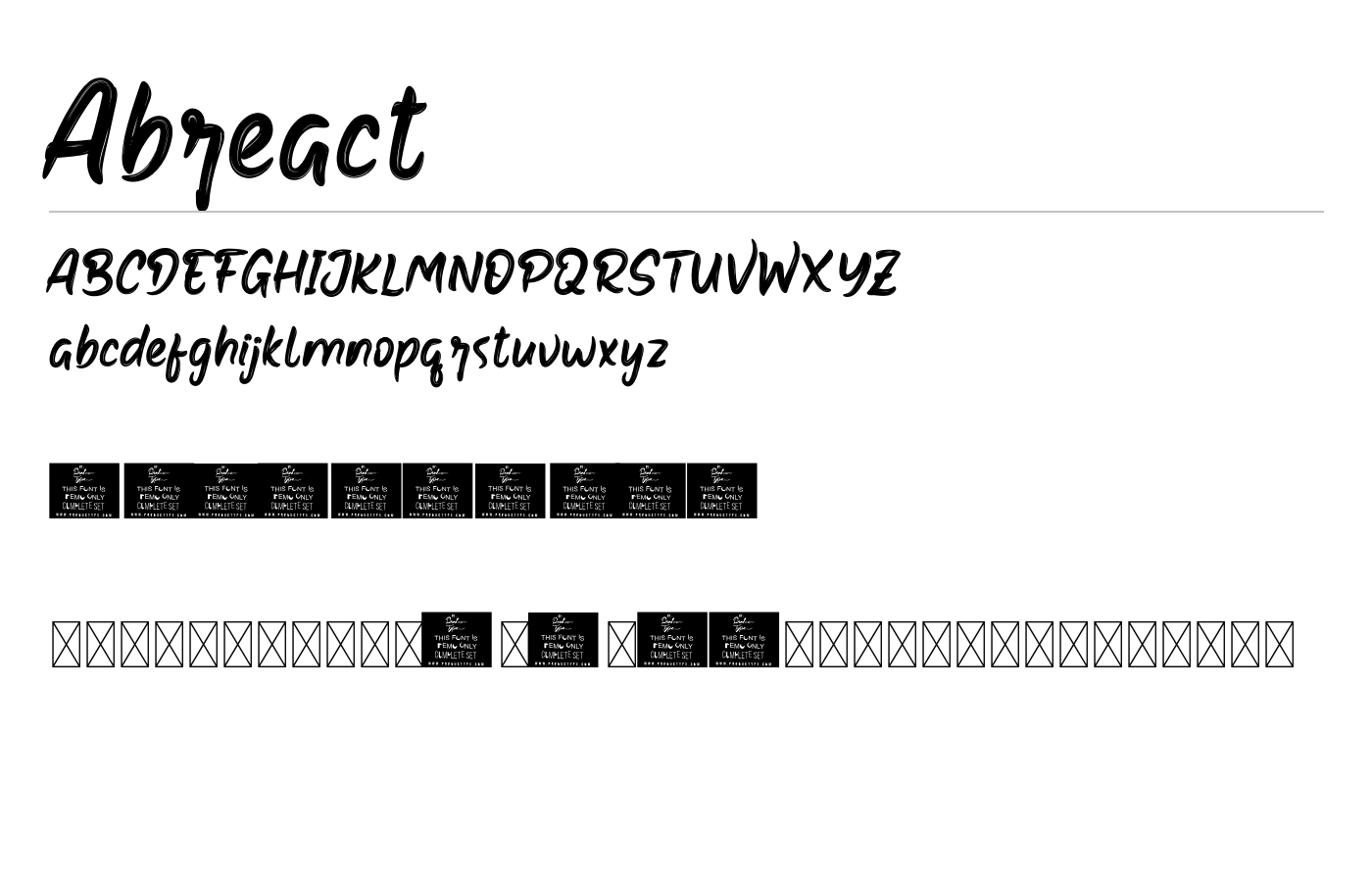
Abreact is a lively and expressive handwritten script font featuring a bold weight and fluid, slightly textured strokes that give it an authentic brush-painted feel. Its casual yet confident style, with rounded edges and moderate contrast, makes it perfect for creative projects, branding, and headlines that need a personal and artistic touch. This font works well in designs that seek a warm, approachable vibe with a hint of energetic flair.
Abreact Font
About Abreact Font